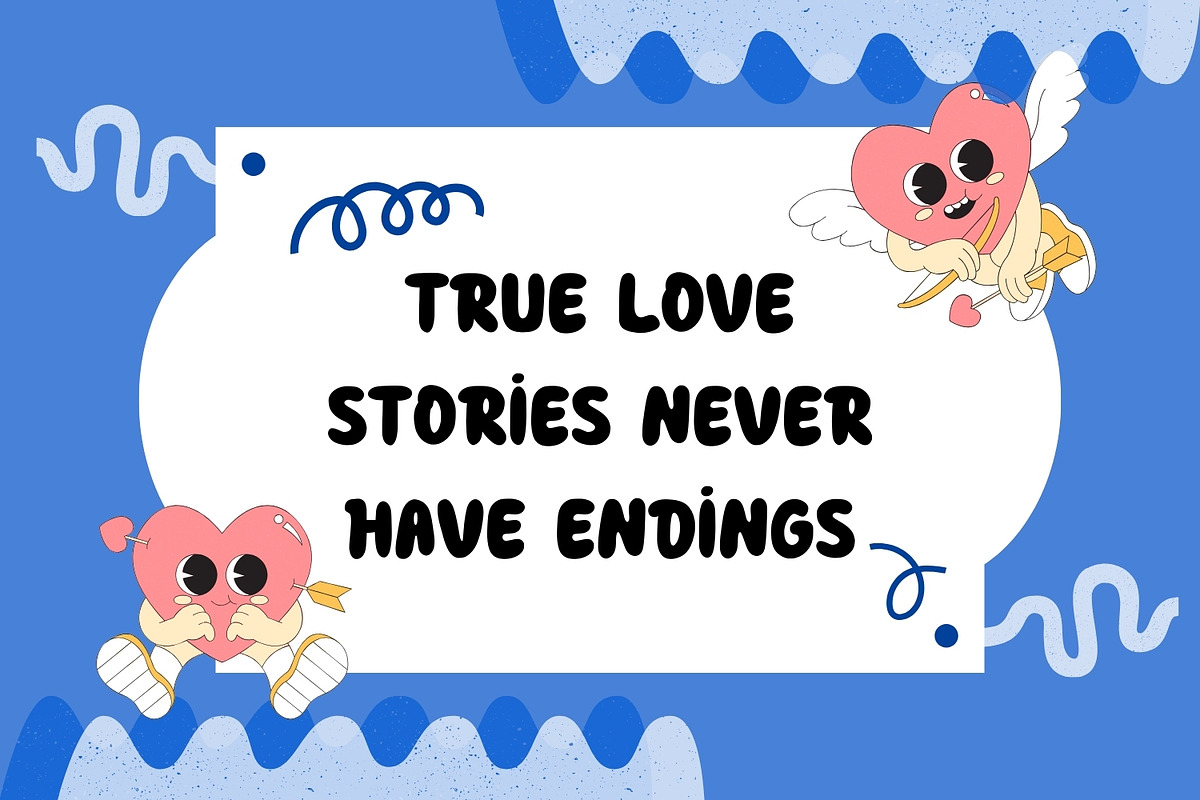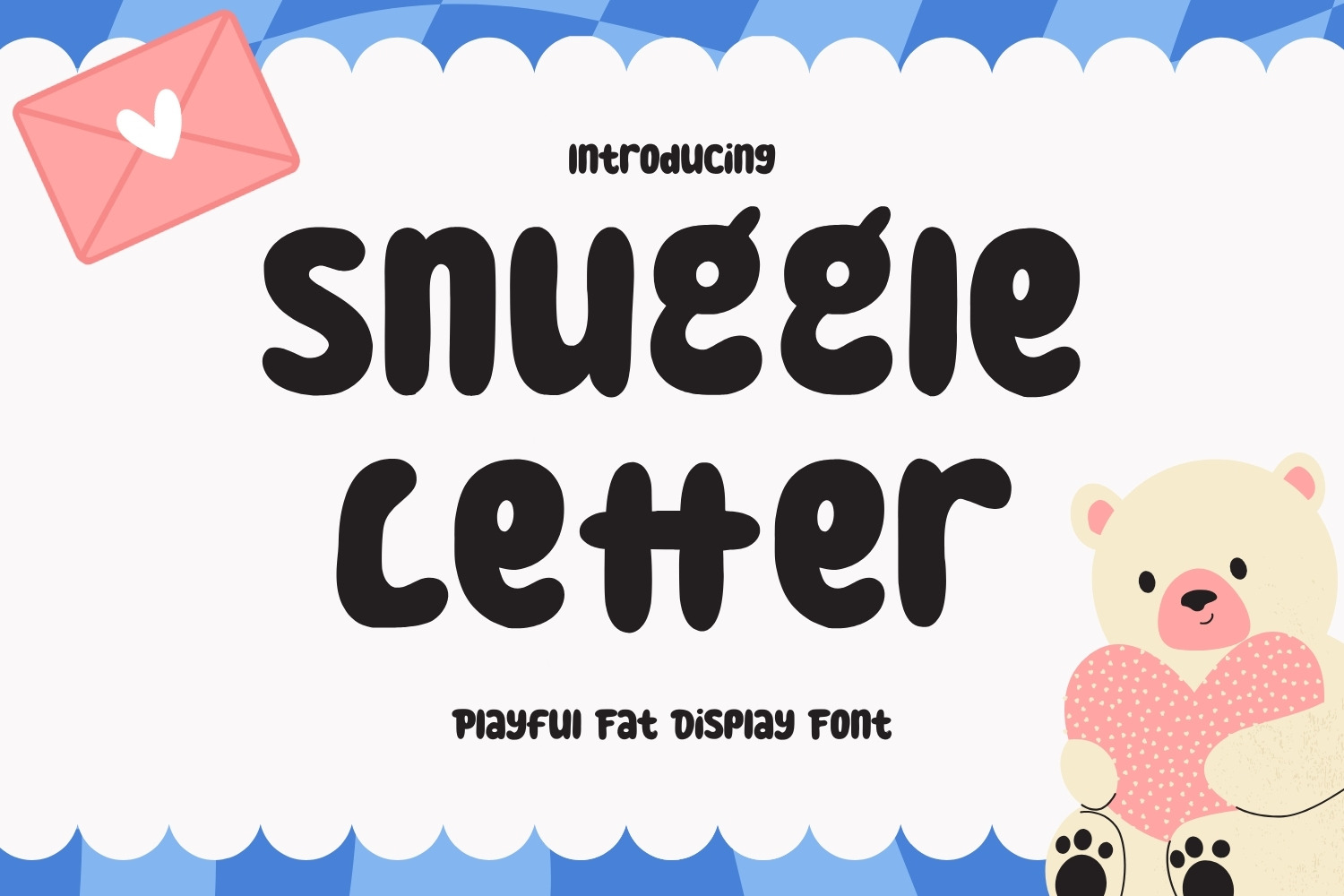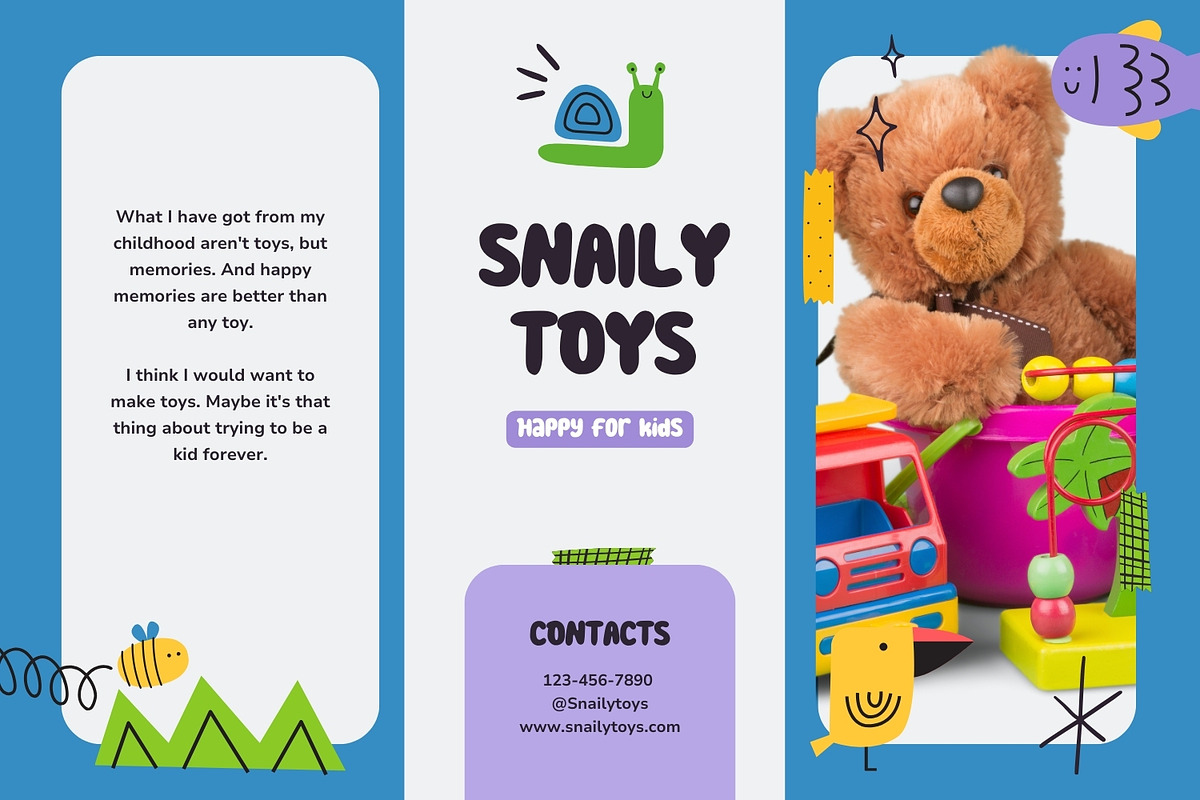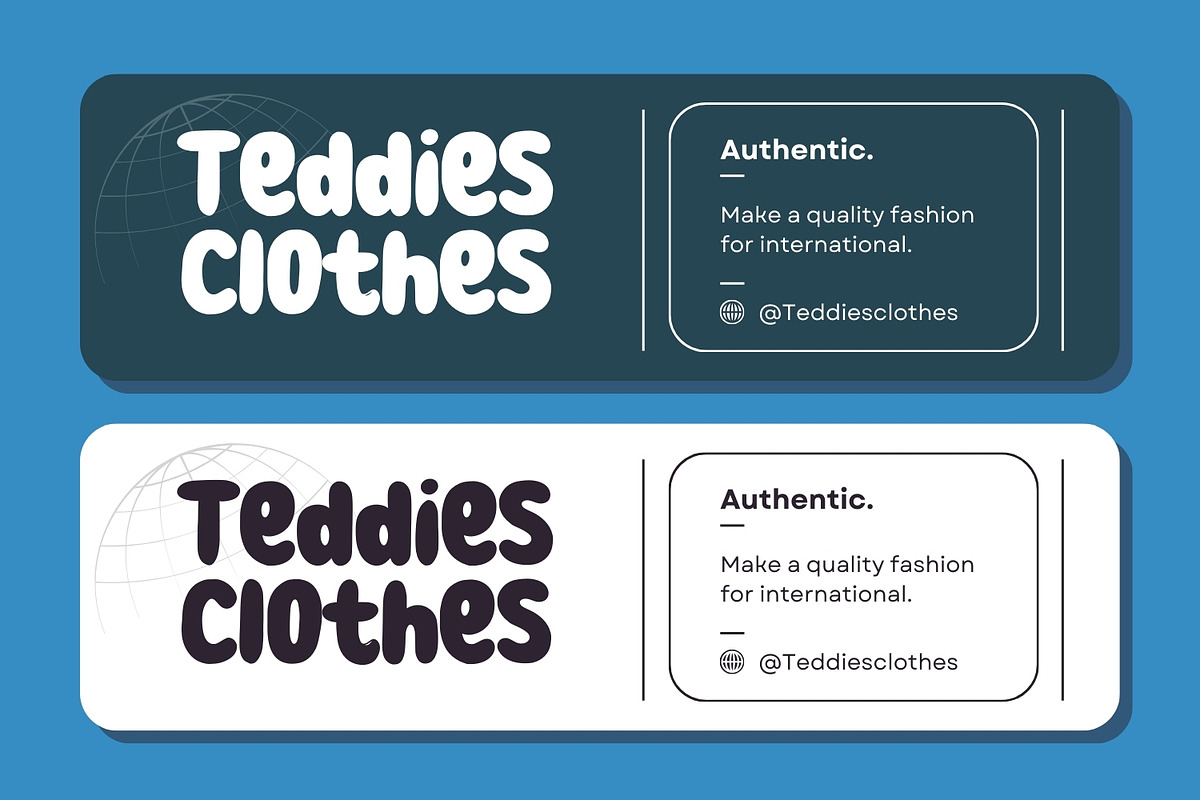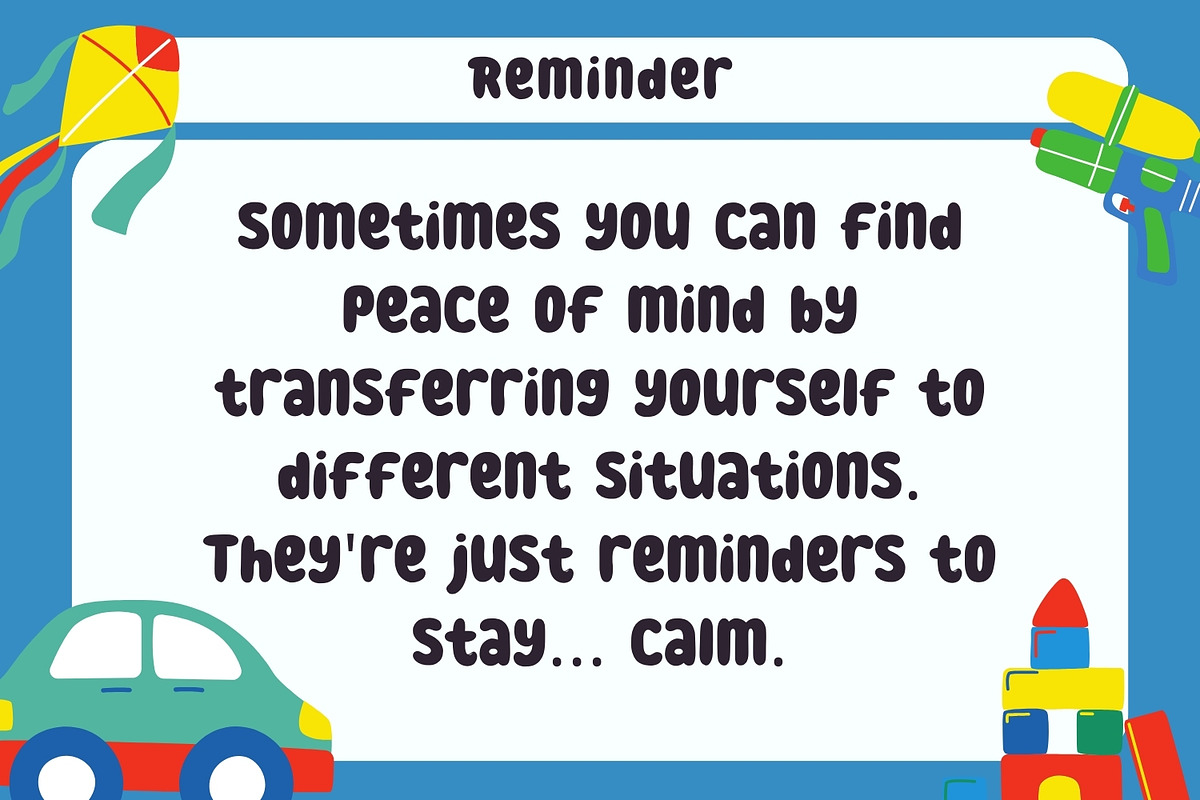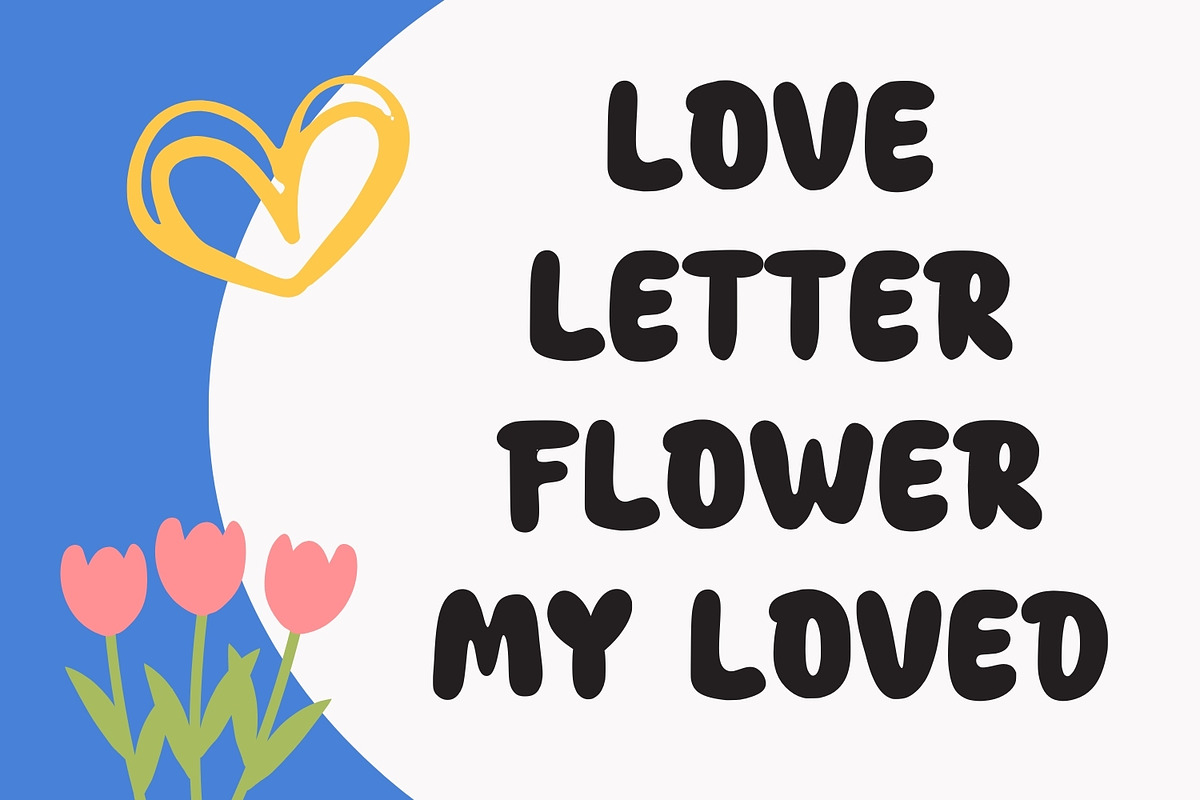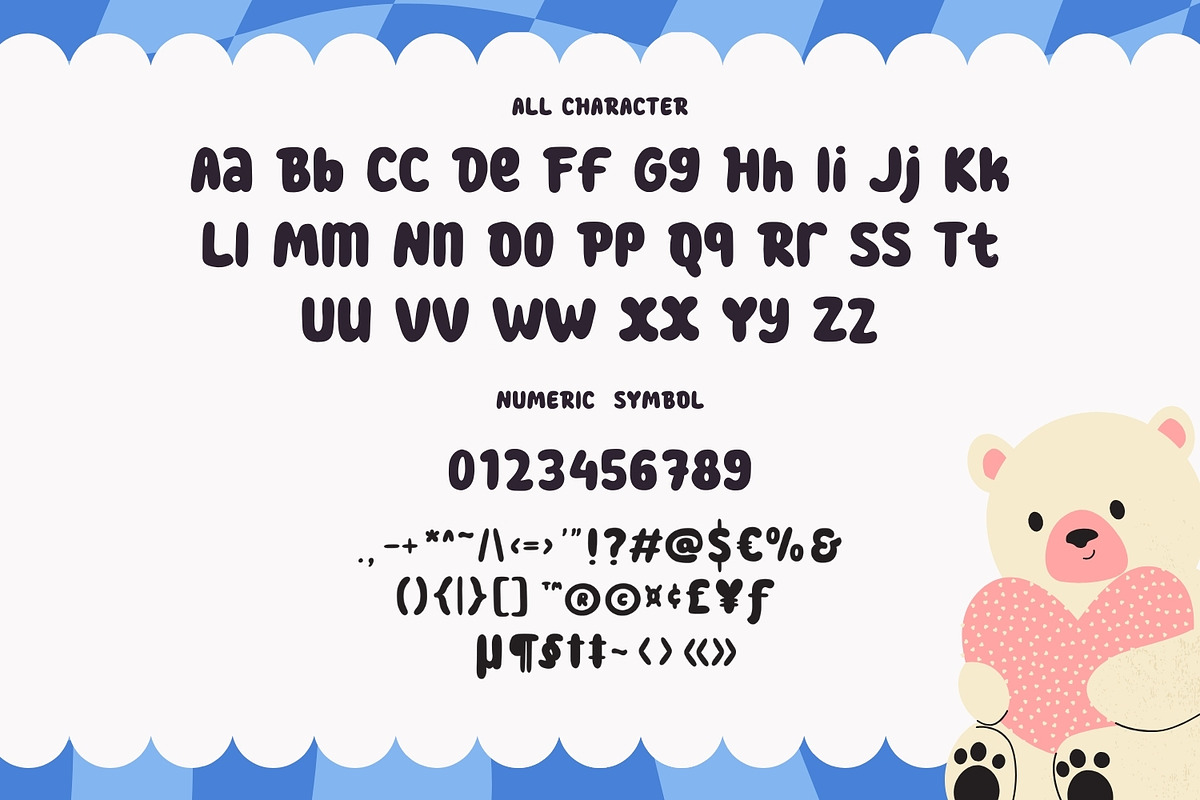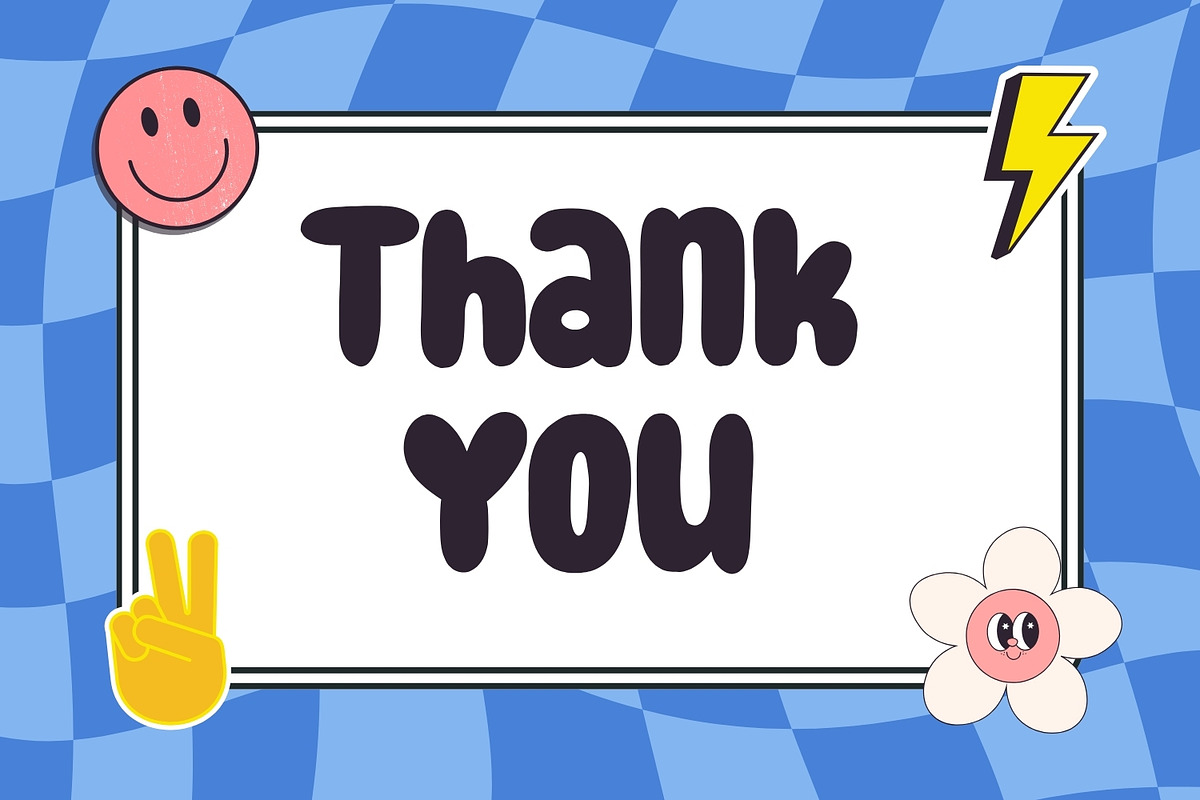
Snuggle Letter - Playful fat Font
Snuggle Letter - Playful fat Font contains a lowercase, uppercase, symbol, and also supports multi-language. There’s a lot of ligature in this font. Snuggle Letter - Playful fat Font also comes with ligatures, stylistic alternates and many more. this font suitable for fashion, branding, catalog and other design that you want.